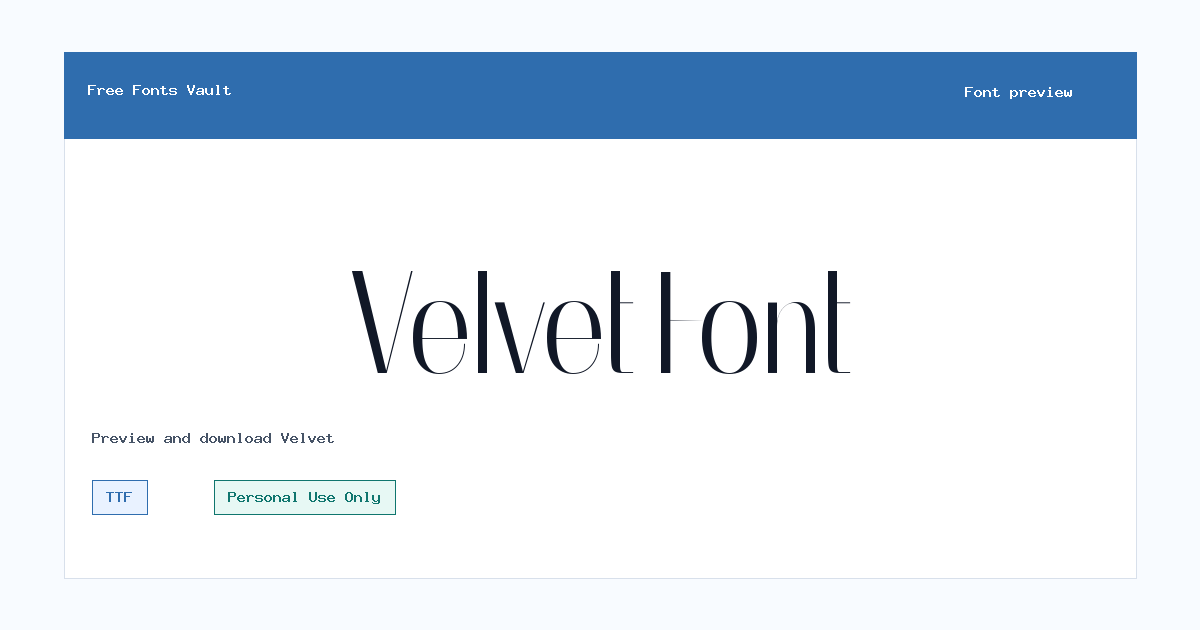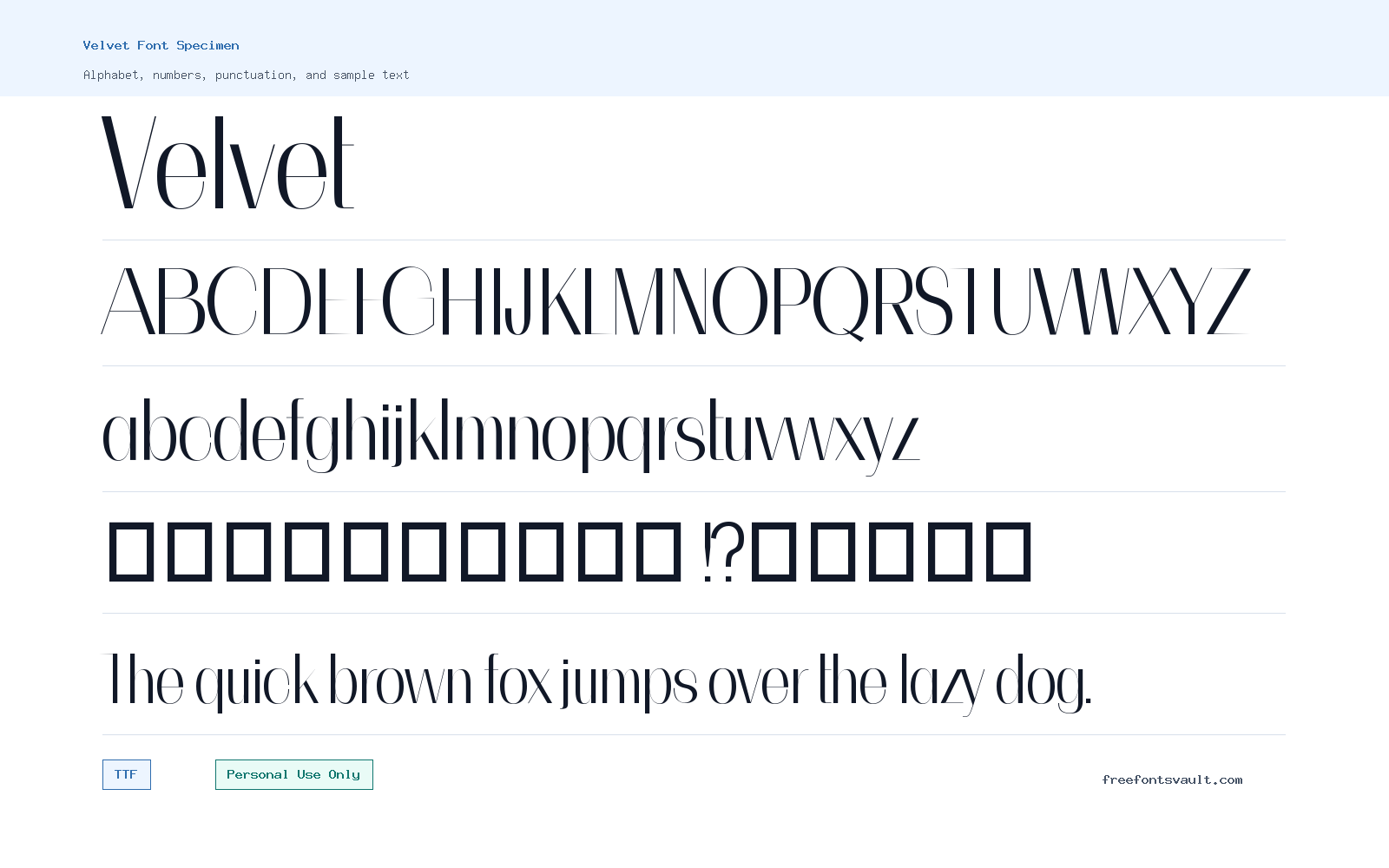
Velvet
Velvet font.
Velvet is a regular-weight sans serif font with a clean, modern look and a soft name that suits display work. It is best approached as a personal-use font for testing titles, graphics, and layout ideas before checking any wider license needs.
About Velvet Font
Velvet comes as a regular style in TTF format, with a normal 400 weight. That makes it easy to install in most design apps and test quickly in a browser preview, word processor, or image editor. Since the available style is a single regular cut, the font is most useful when you want one clear voice rather than a full family with bold, italic, or multiple weights. Try it first in short text, where spacing, letter shapes, and overall tone are easier to judge.
For visitor use, Velvet is a sensible choice to preview in headings, simple logos for practice, social graphics, name cards, quote images, labels, and other personal design mockups. Keep an eye on readability at small sizes, especially if you plan to use it in menus, captions, body copy, or dense paragraphs. A single-weight sans serif can look neat in clean layouts, but it may need help from contrast, size, and spacing to stay comfortable. Pair it with a plain serif or a highly readable text sans for longer copy, and let Velvet handle the title or accent role.
- Single regular style for straightforward testing and personal projects
- Personal graphics
- Headings and short display text
- Practice logos and name designs
- Labels, cards, and simple mockups
What is Velvet best for?
Velvet is best tested in personal display uses such as headings, practice logos, social graphics, labels, and short design mockups.